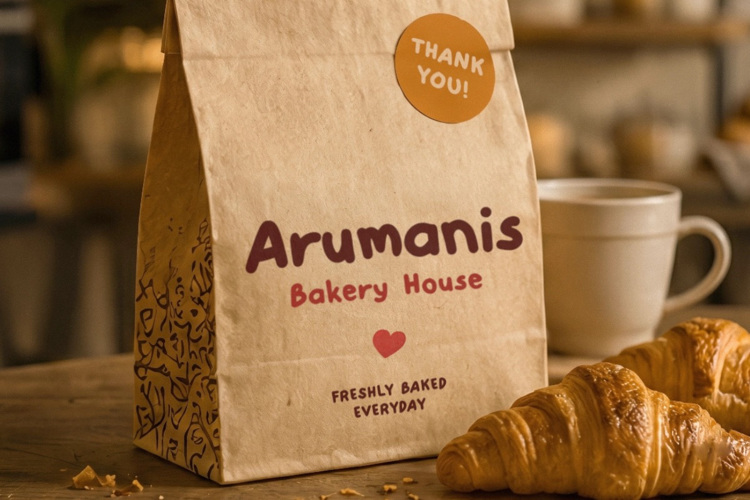
Butterlish Font
Butterlish is a bold handwritten typeface inspired by the warmth of homemade treats, neighborhood bakeries, and cheerful food packaging. Built with thick rounded strokes and softly irregular letterforms, it delivers a welcoming handcrafted appearance that feels genuine rather than overly polished.